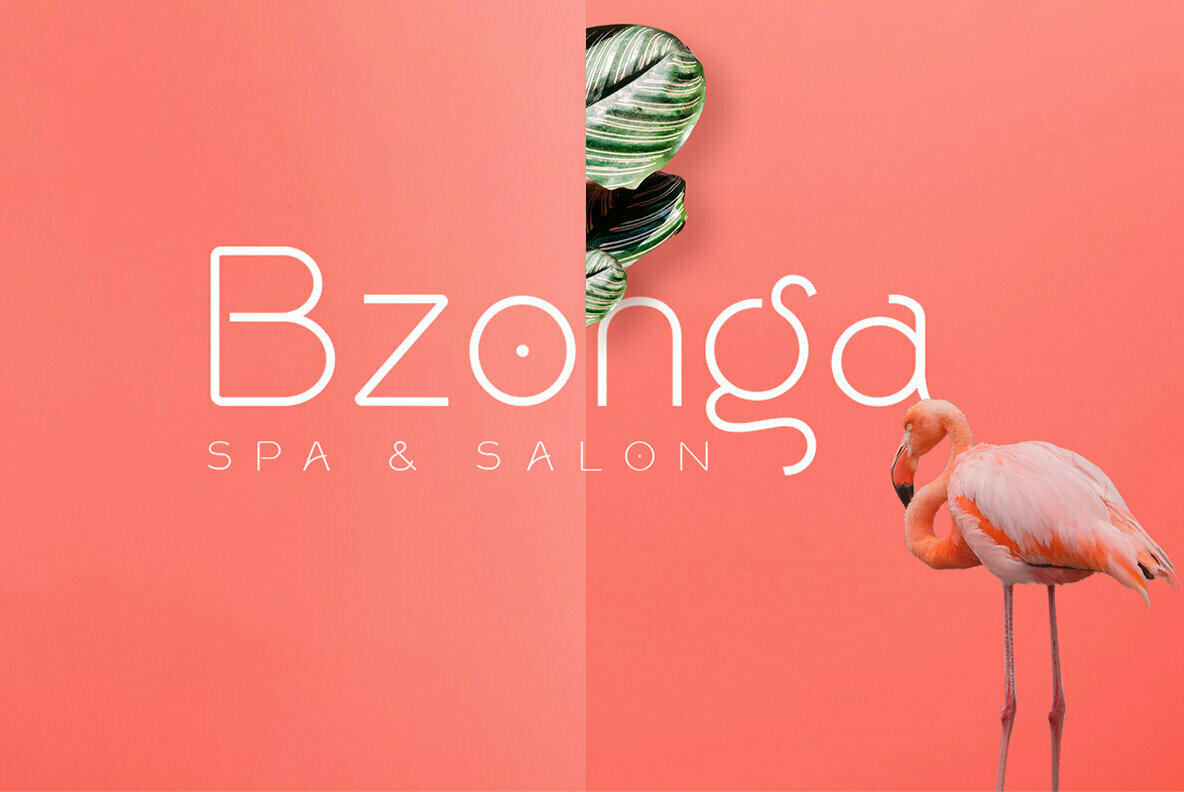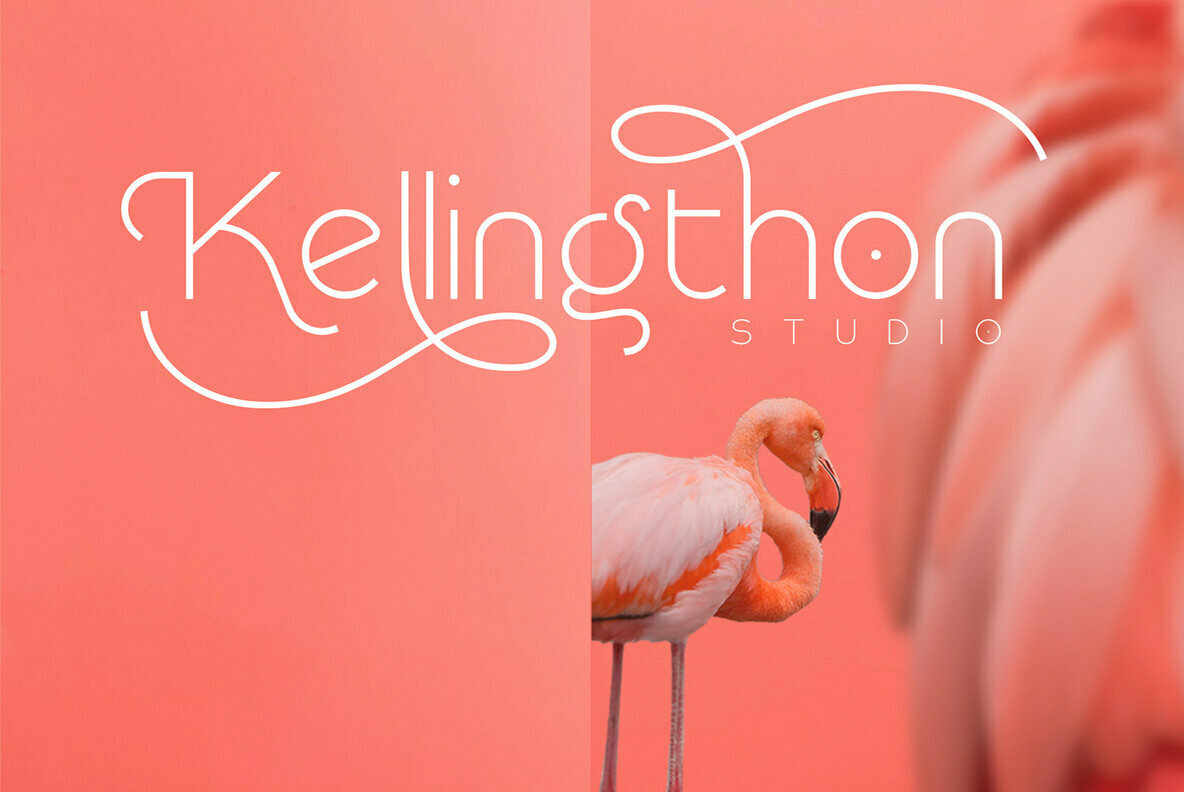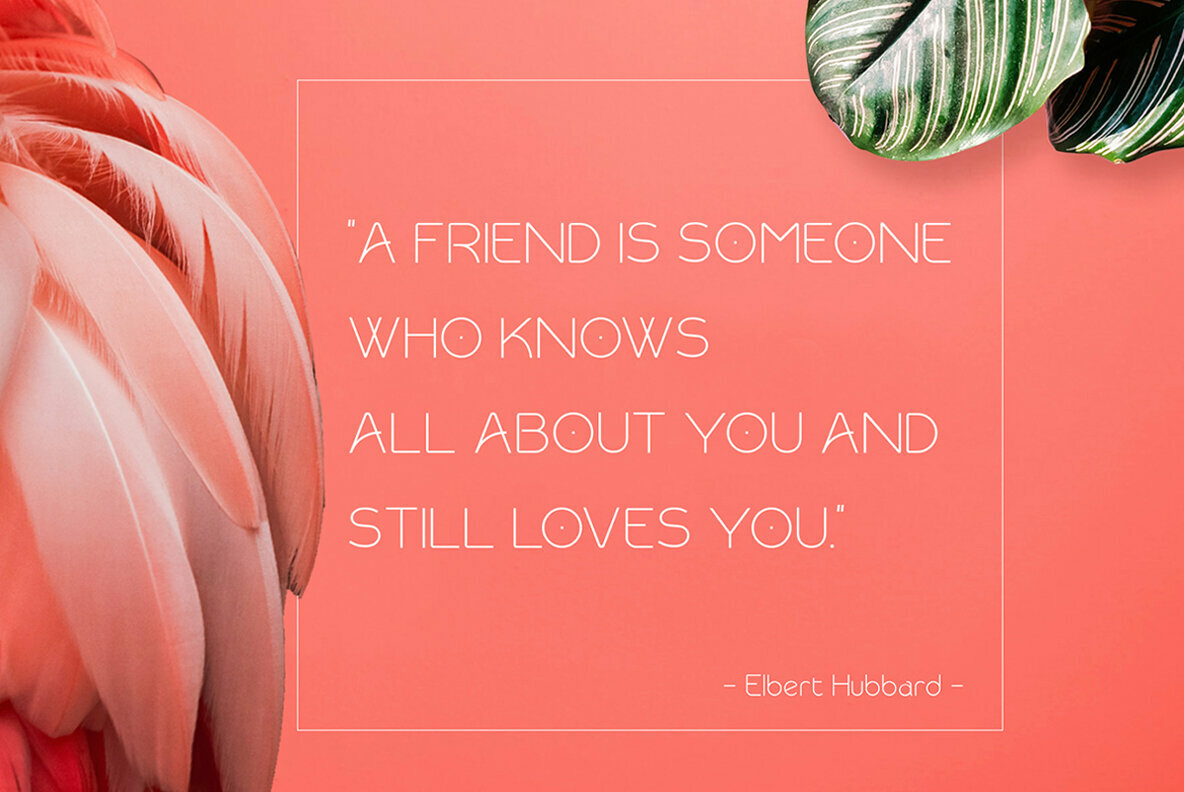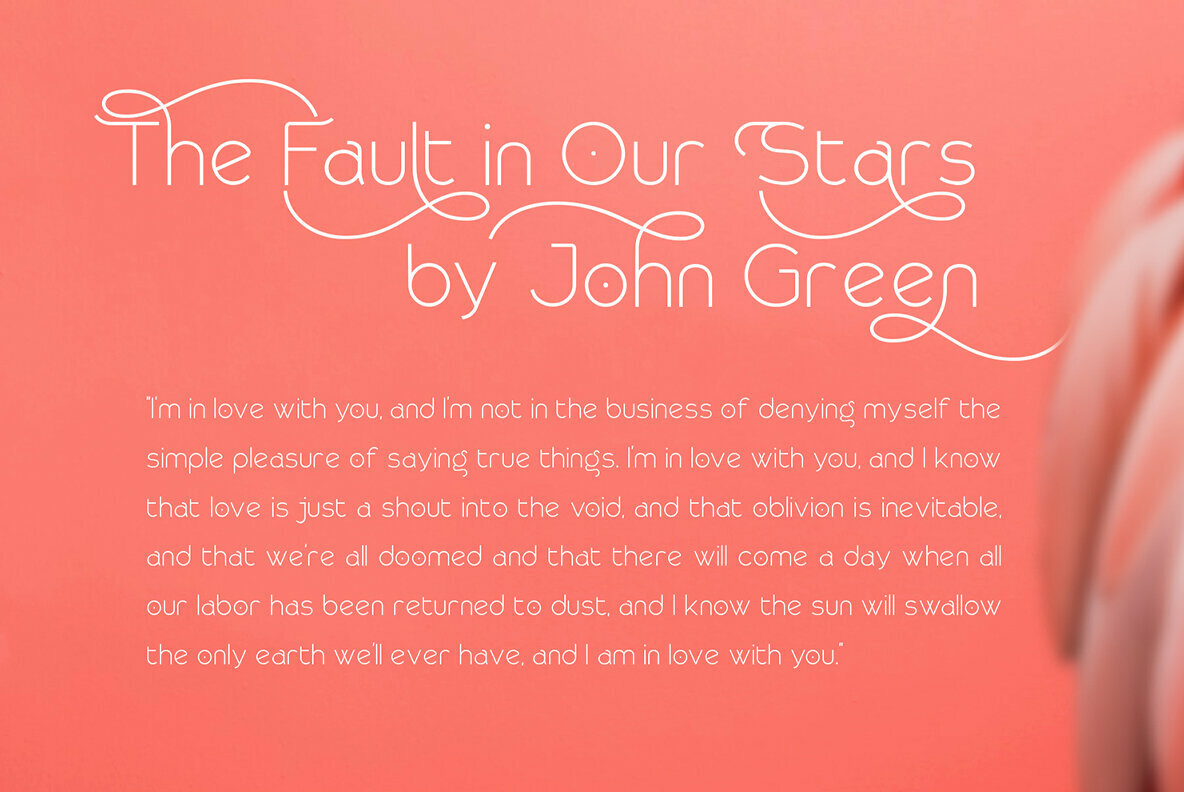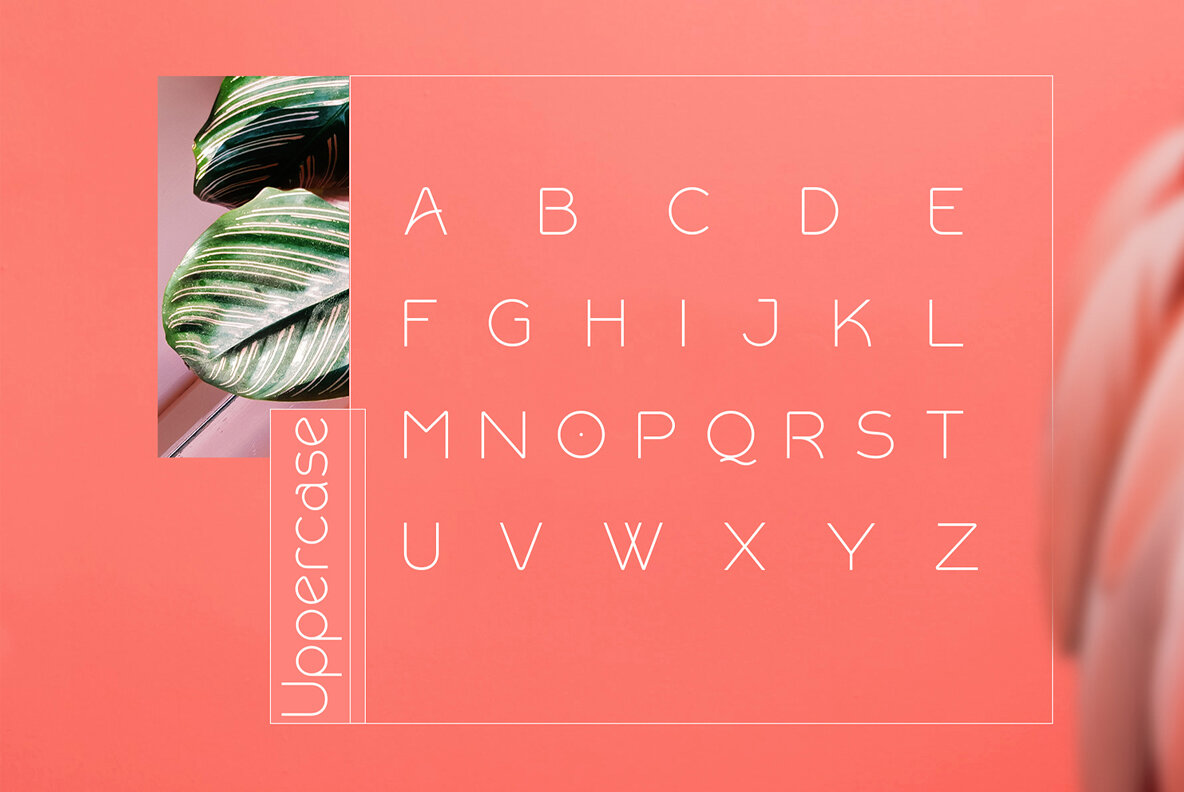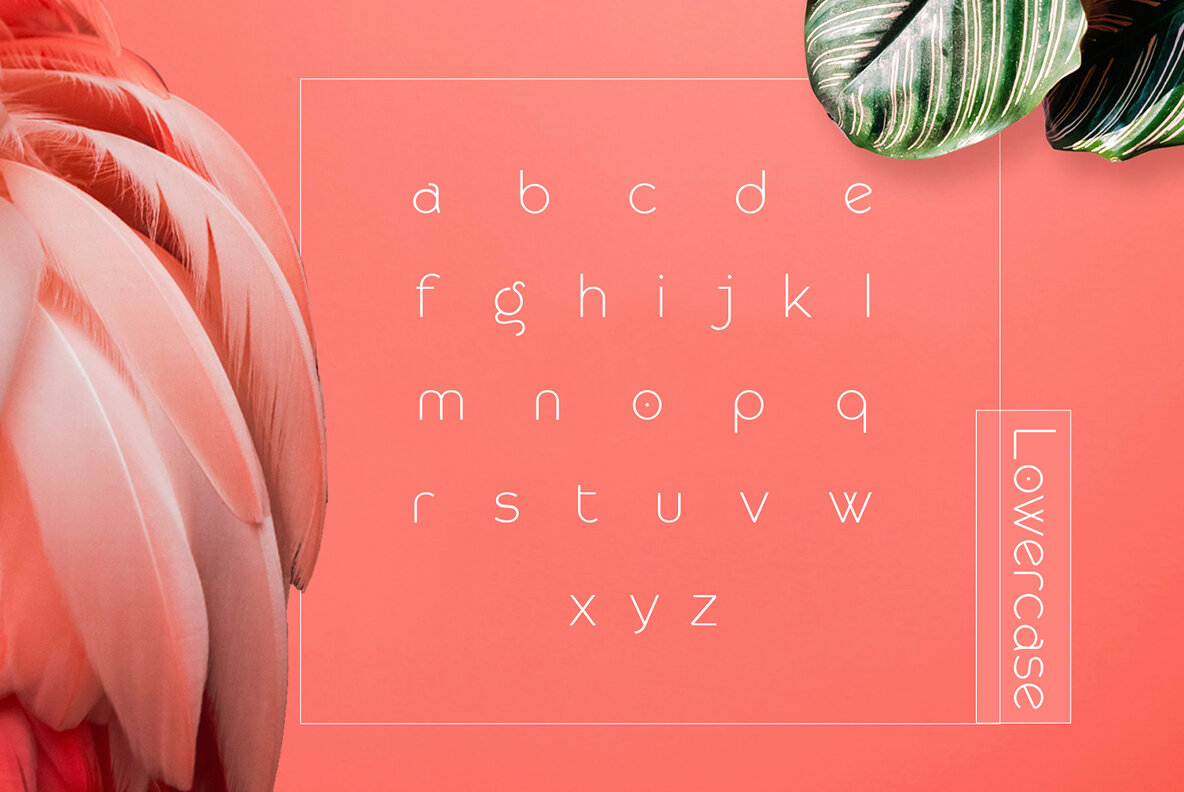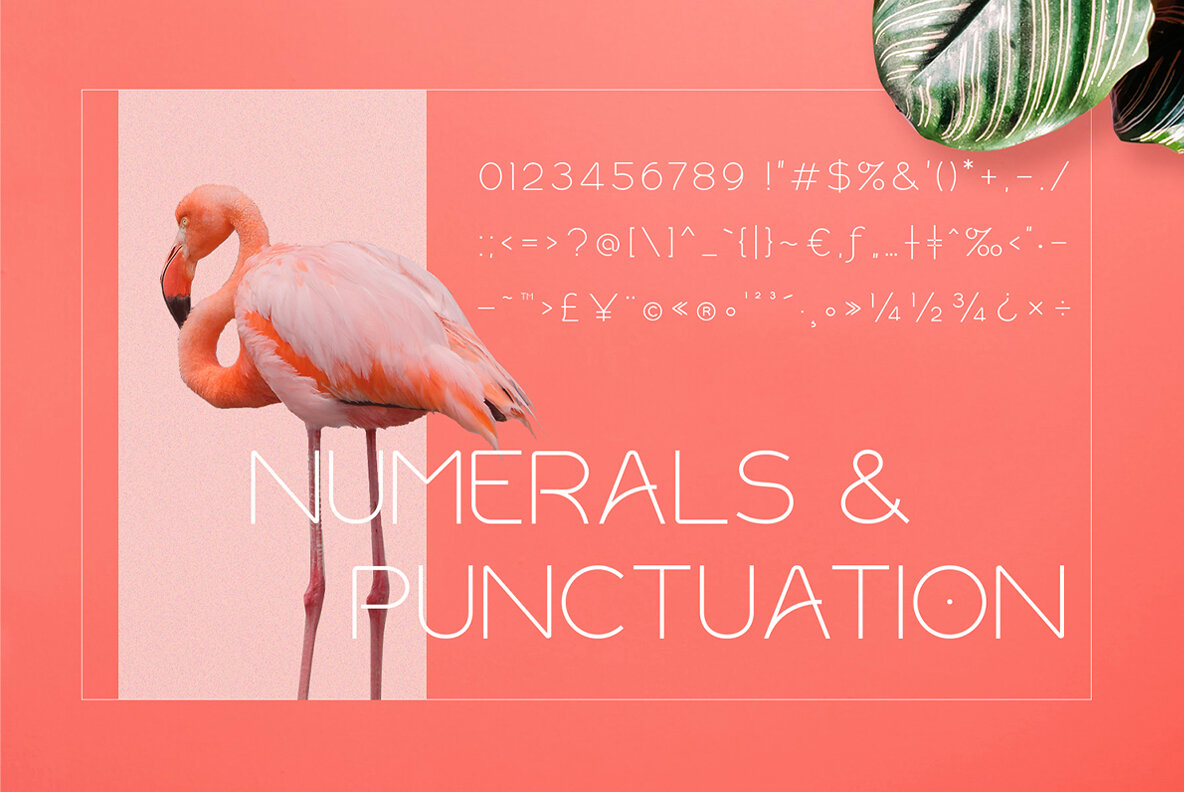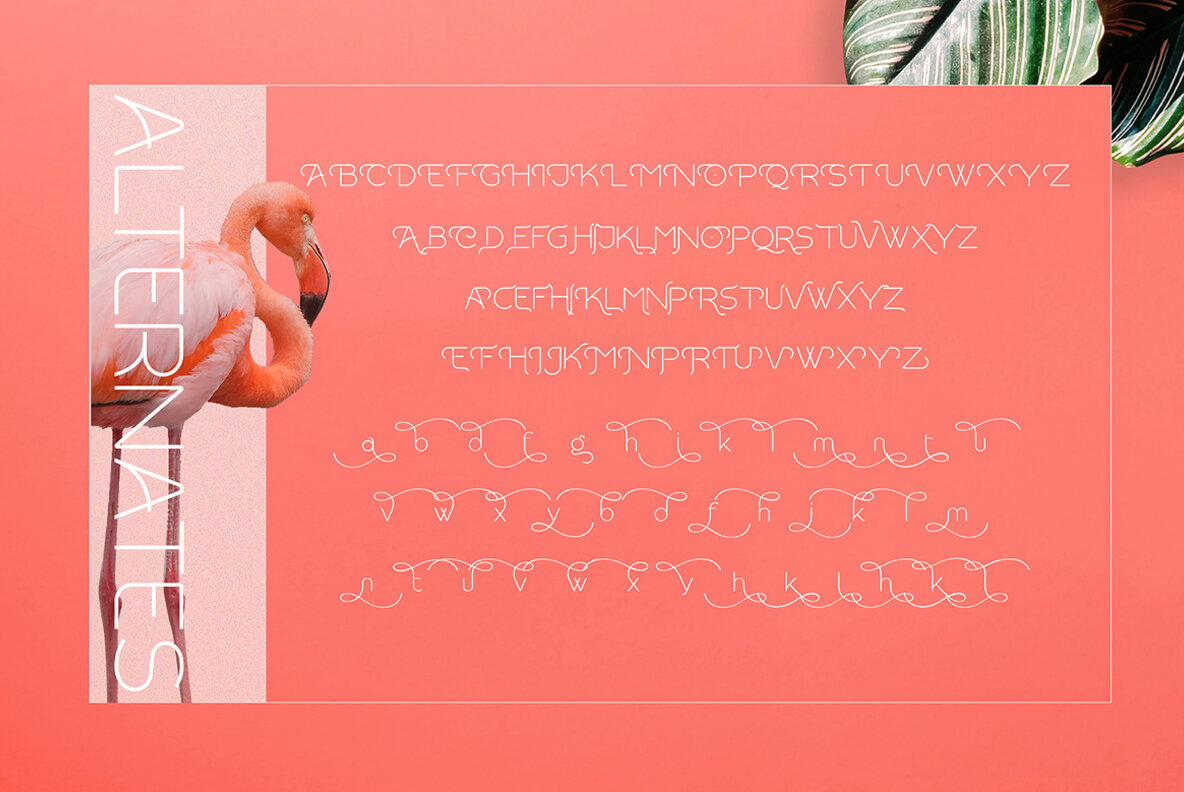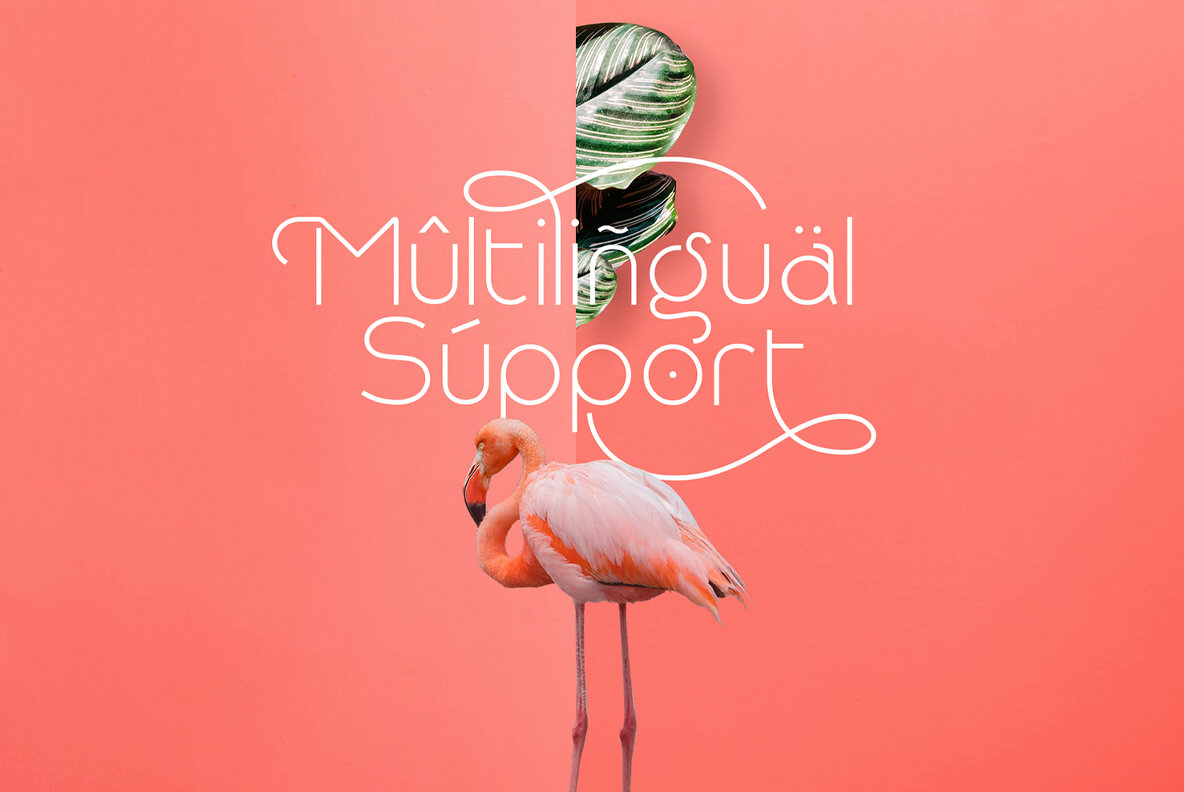
Rollgates Font
Rollgates
Rollgates captures the essence of modern design with its sans serif structure, characterized by clean lines and a minimalistic touch. Ideal for those seeking a sleek and versatile typeface, Rollgates lends itself perfectly to a variety of projects such as logos, magazine layouts, and even large-scale artwork. Its understated elegance ensures that it enhances the visual appeal of any project without overpowering it. Features:Rollgates: A Modern Sans Serif With Minimalist Appeal